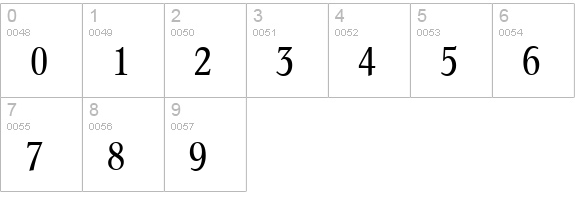
C791-Roman-Smc-Regular is the standard, neutral variant in the C791 typeface family \xE2\x80\x94 well suited to general body text, paragraphs, and standard typographic work.
C791-Roman-Smc-Regular is a versatile and elegant font that exudes sophistication and style. Its classic Roman style lends a timeless appeal to any design project, making it a perfect choice for various purposes such as branding, titles, and body text. The clean lines and balanced proportions of this font ensure readability and visual impact. What sets C791-Roman-Smc-Regular apart is that it is available for free download at FontsMarket.com. This means that you can easily access and use this high-quality font in your projects without any cost. Whether you're a professional designer or a hobbyist, having this beautiful typeface at your disposal can elevate your creations and make them stand out. With its refined aesthetic and ease of use, C791-Roman-Smc-Regular is a valuable addition to any designer's font library. Download it today for free and unlock the potential to enhance your designs with a touch of elegance and sophistication.